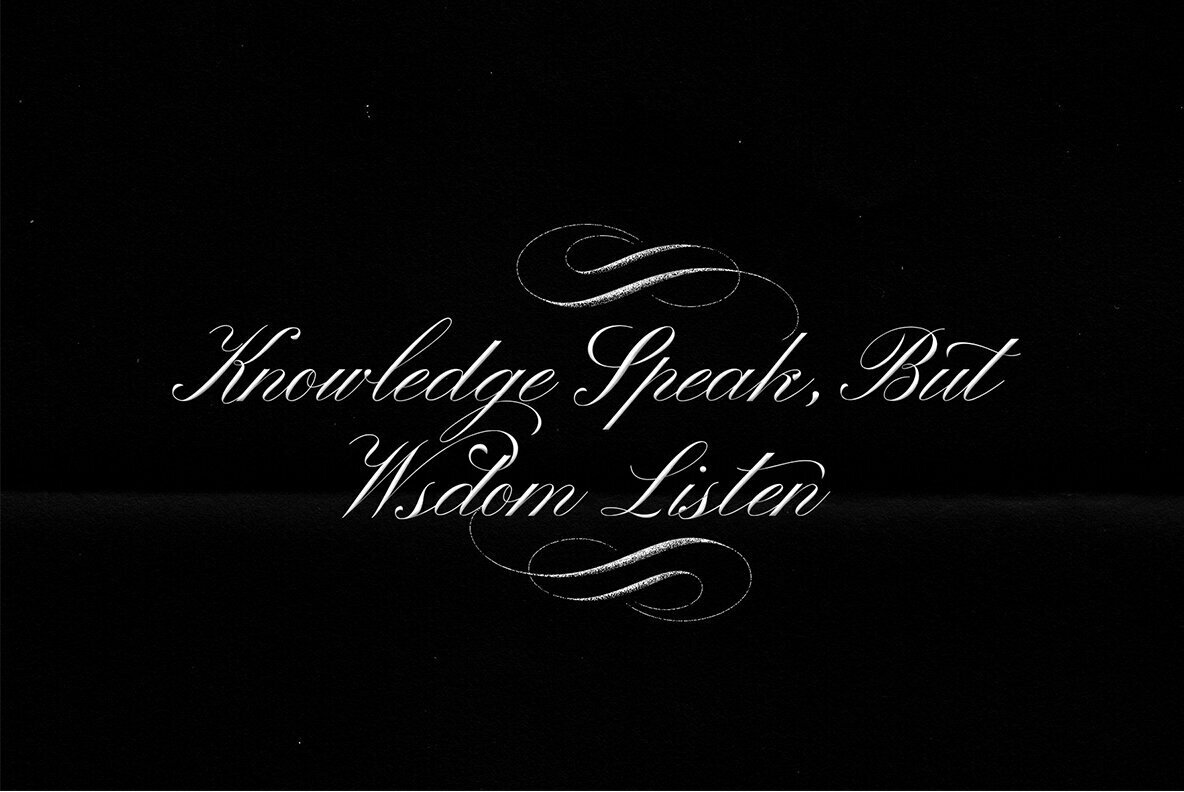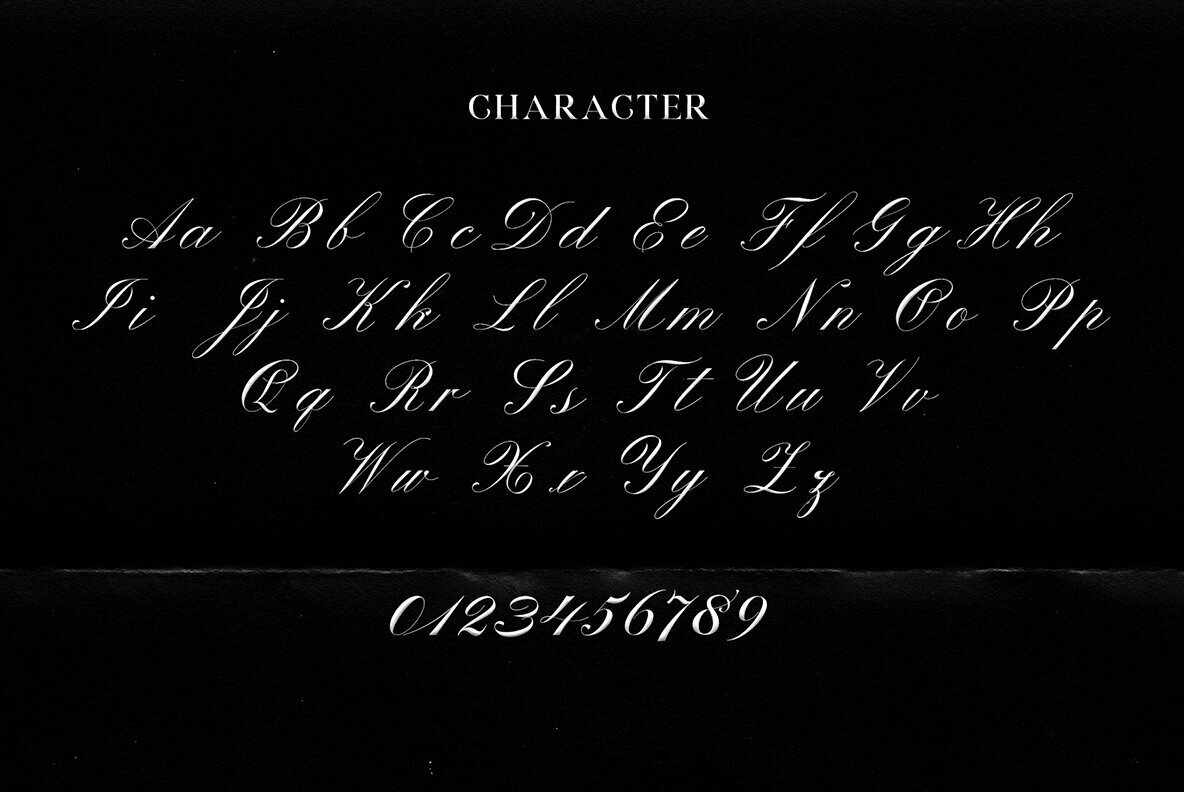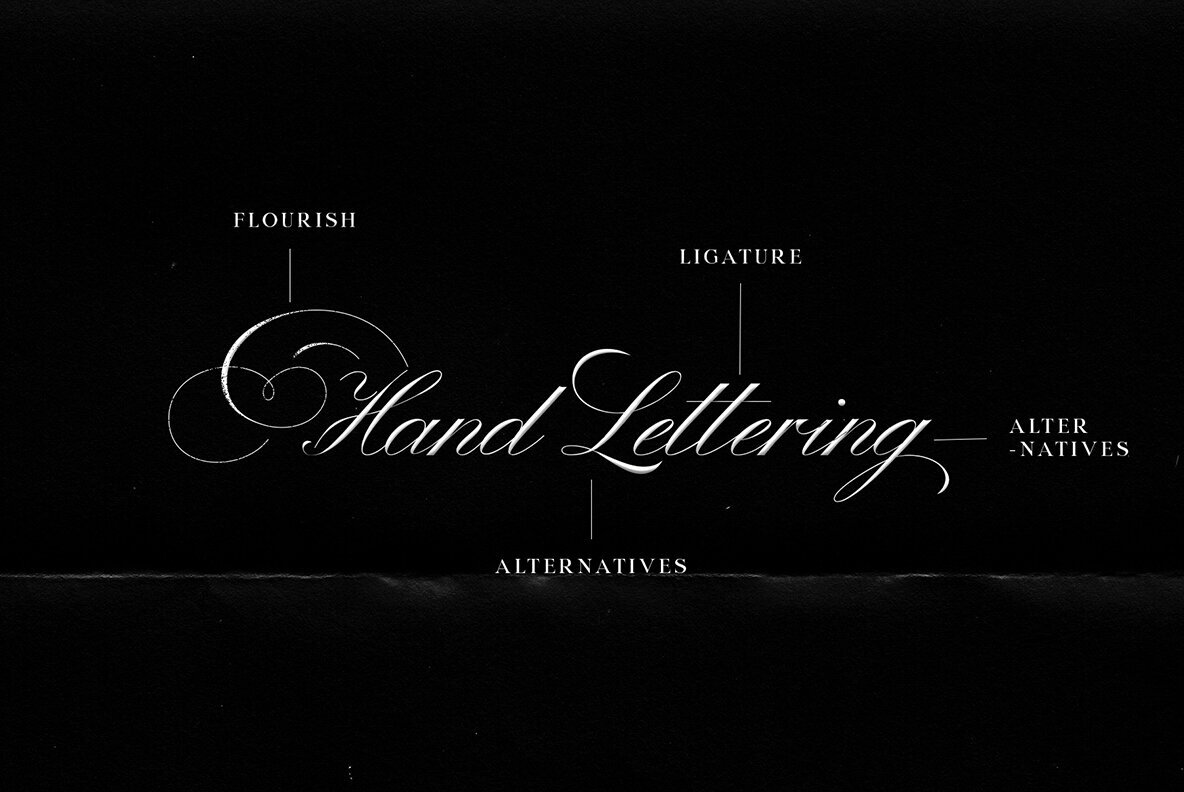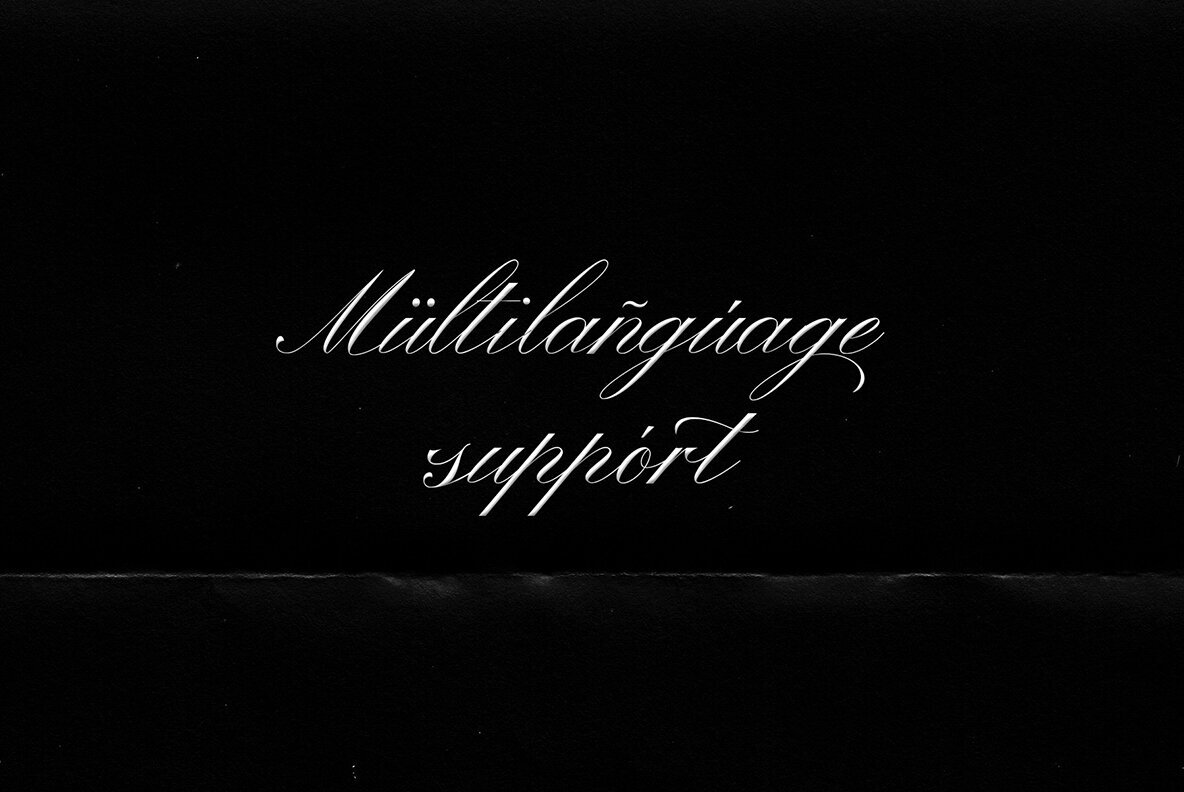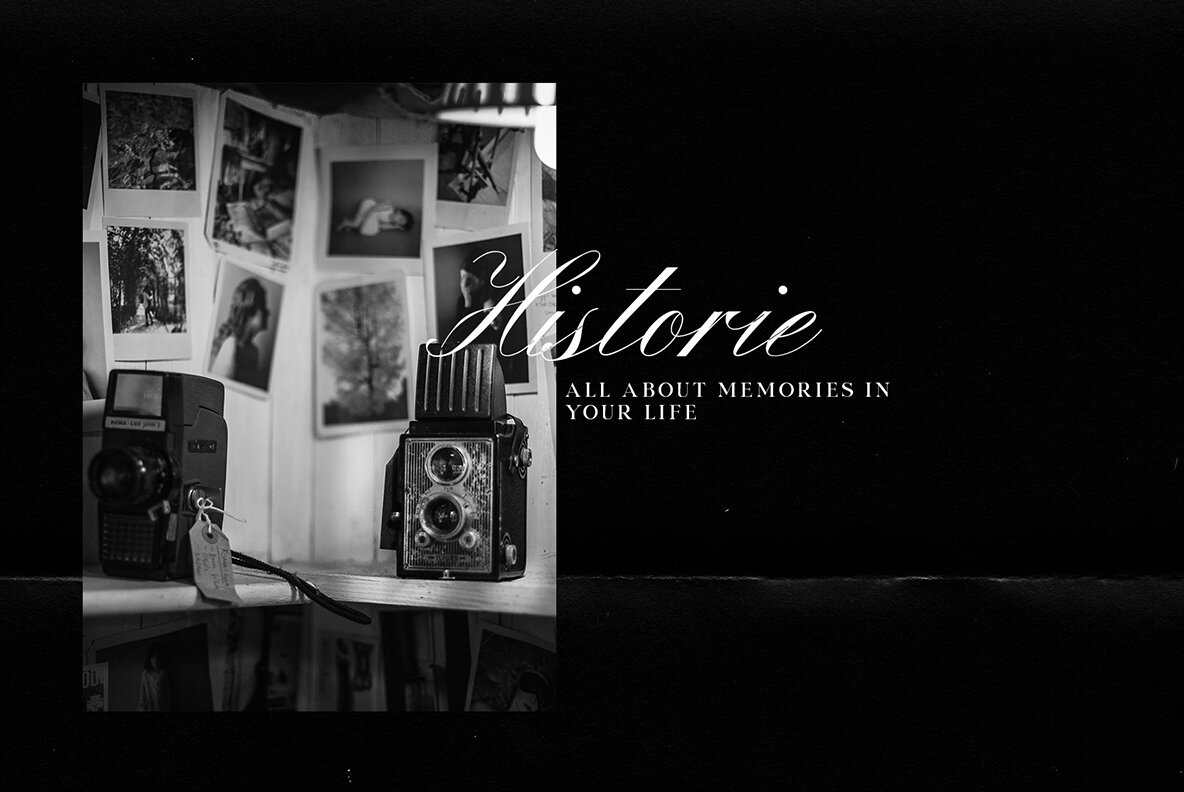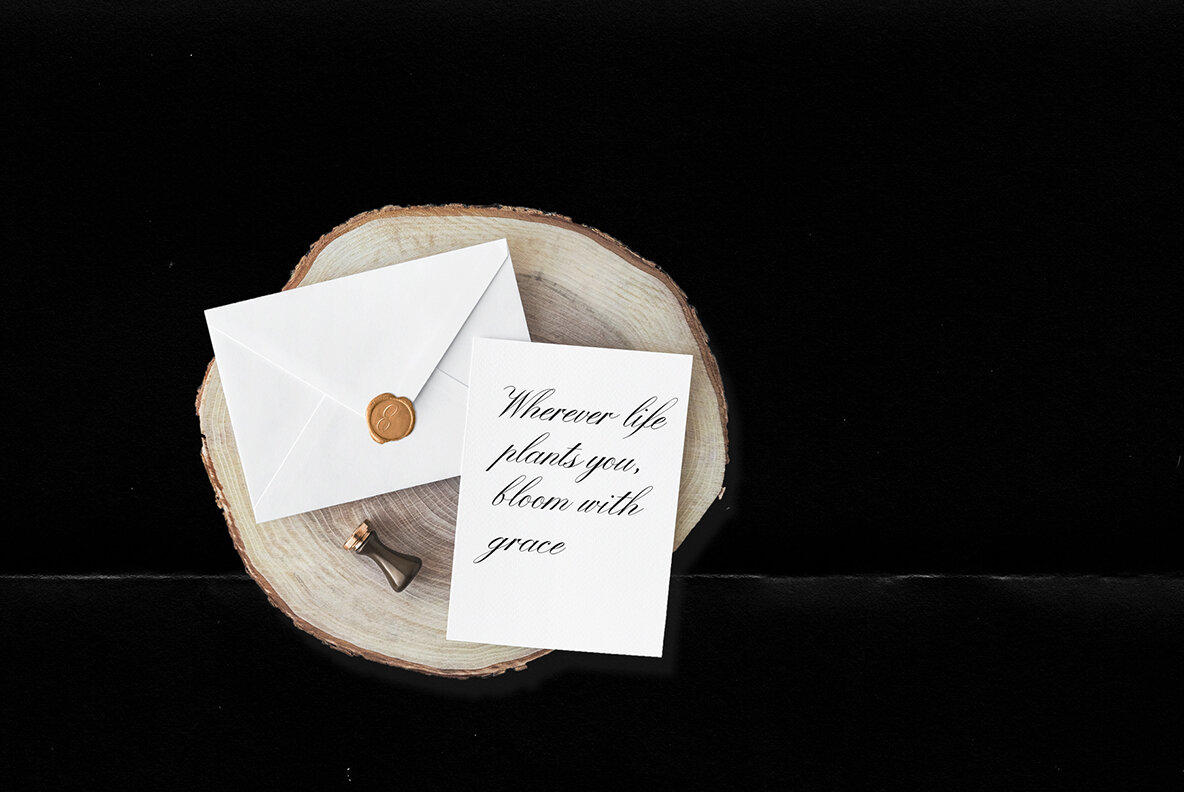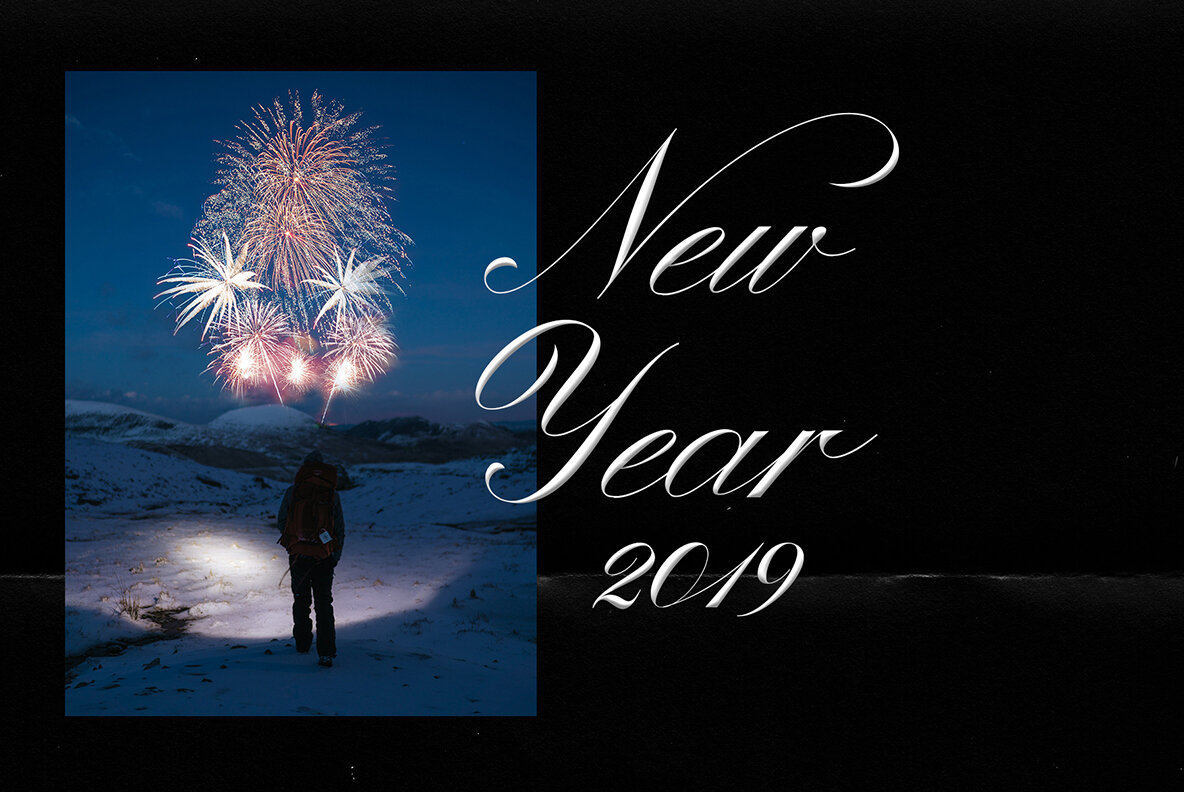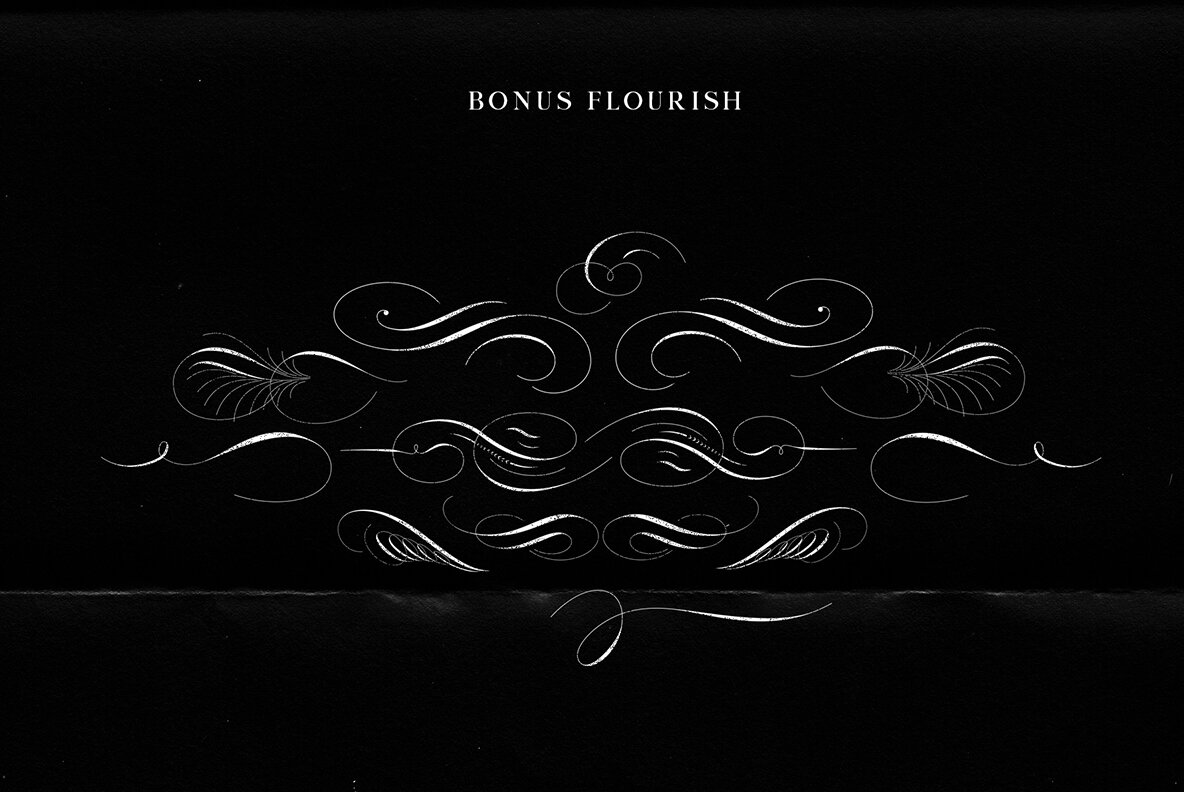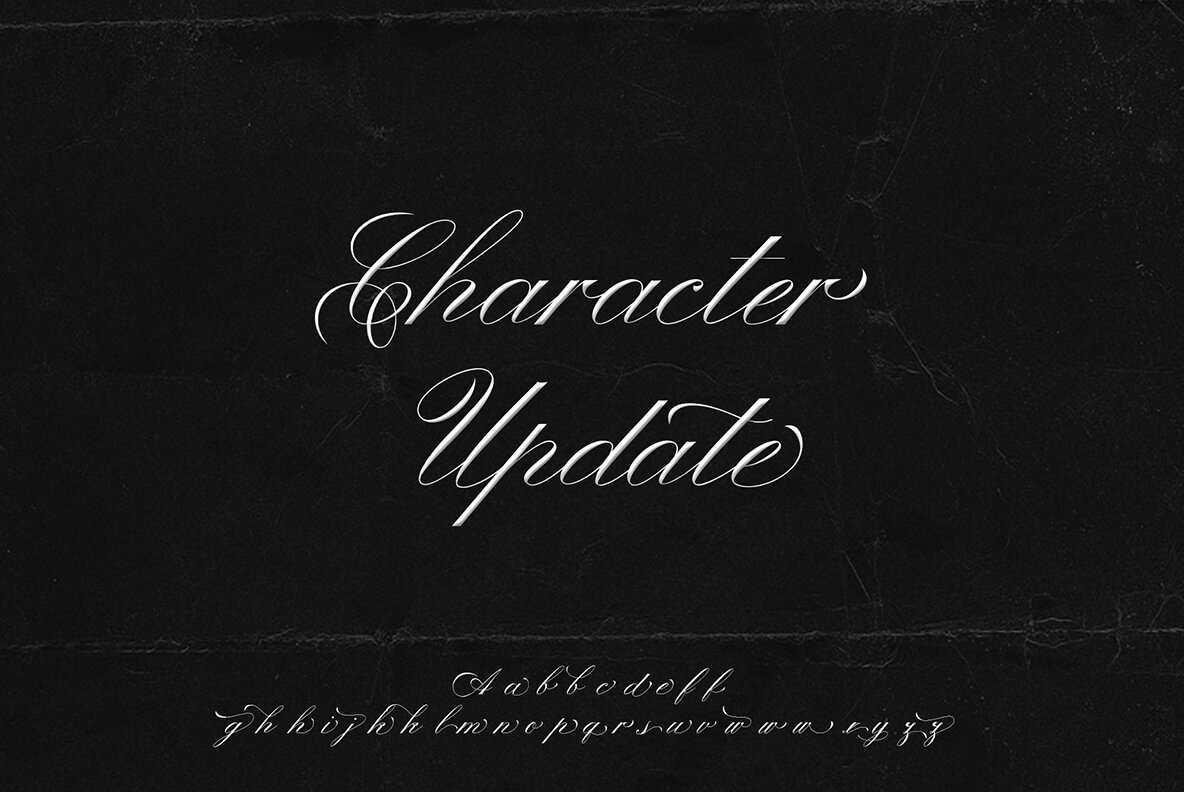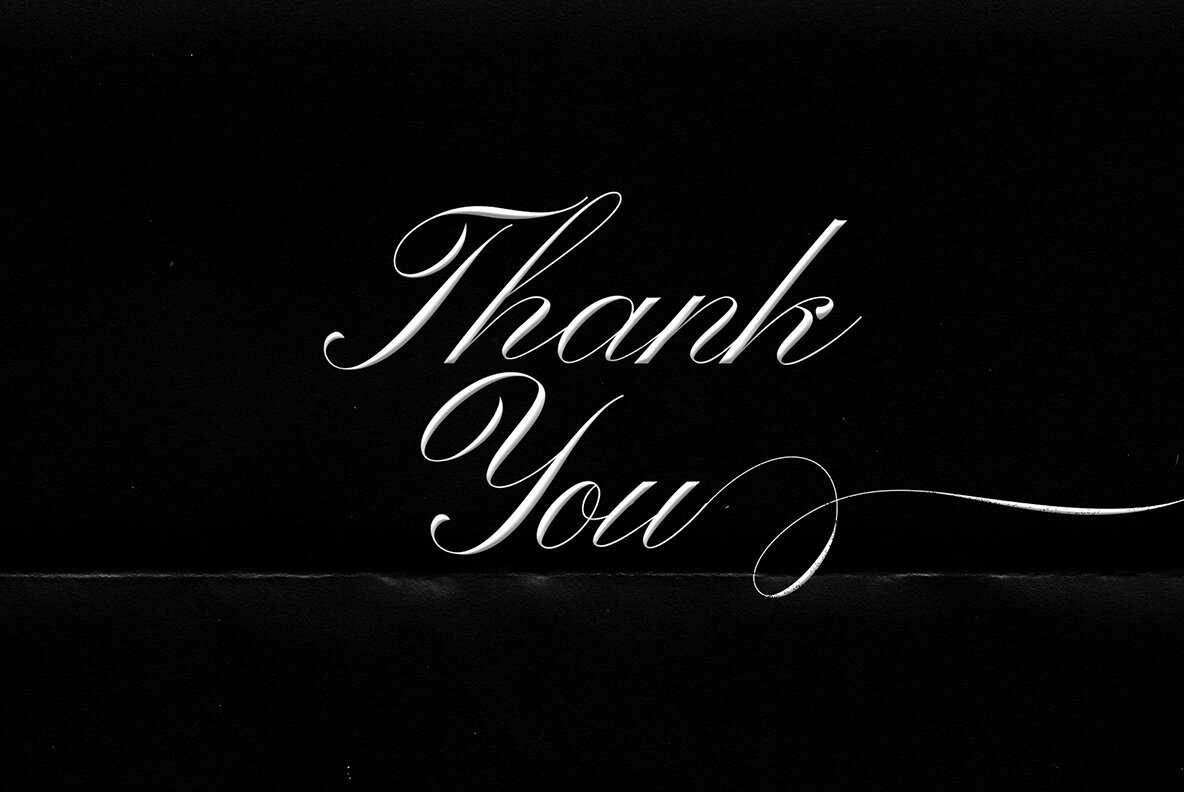
Winterskol Font
Winterskol presents a refined script typestyle that draws inspiration from traditional hand lettering. Crafted to evoke the elegance of classic calligraphy, this font offers an array of OpenType features, including ligatures and alternatives. Its versatility makes it an ideal choice for a wide range of creative projects, such as logos, apparel designs, posters, and cards. Winterskol remains a preferred choice for designers seeking a font that combines tradition with contemporary usability. Its classic aesthetic is perfect for elevating any visual project.Winterskol: Classic Script for Timeless Designs